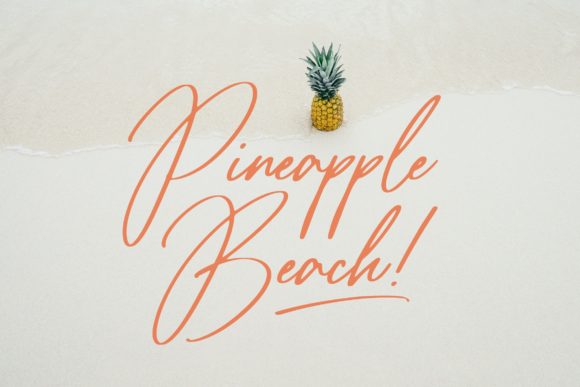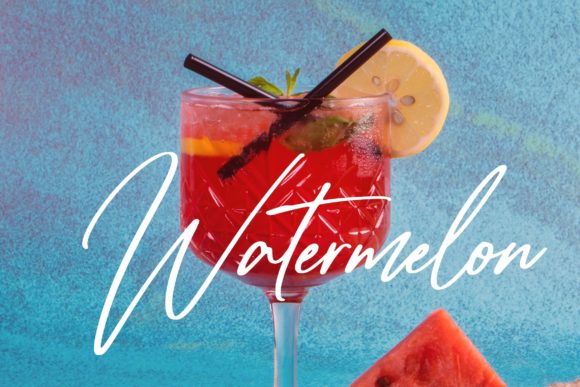
Tropical Harmony Script Font
db-ku.com - Script & Handwritten -- Tropical Harmony Script is an enchanting handwritten font. This versatile script font has a wide spectrum of applications ranging from greeting cards to headlines and is guaranteed to add a romantic feel to your next project.